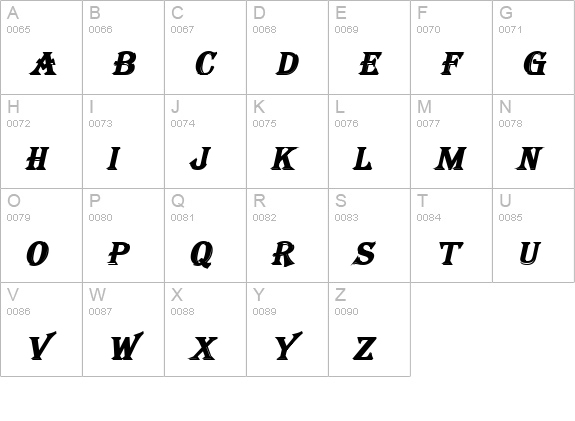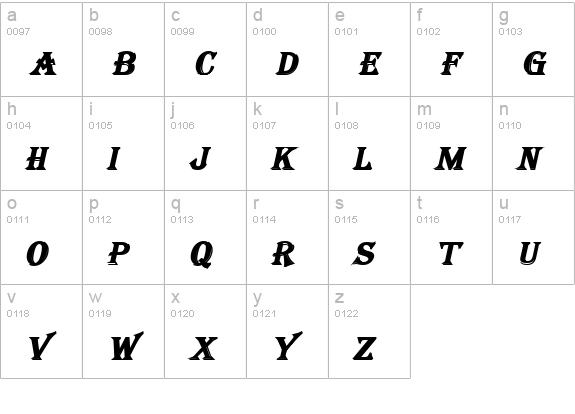
Tangiers BoldItalic Font Details
Introducing Tangiers BoldItalic, a captivating and dynamic font that effortlessly combines boldness and elegance. This unique font is sure to make a lasting impression with its striking and sophisticated appeal. Tangiers BoldItalic is perfect for those seeking a font that exudes confidence and style. Its bold and italicized design adds a touch of flair and individuality to any project, making it an ideal choice for headlines, logos, posters, and more. With its strong and confident presence, Tangiers BoldItalic commands attention and demands to be noticed. Its sleek and modern aesthetic effortlessly captures the essence of contemporary design, making it a versatile choice for both digital and print applications. But what sets Tangiers BoldItalic apart is not just its stunning design—it's also free. Yes, you read that right! This extraordinary font is freely available to download at FontsMarket.com. Now you can enjoy the benefits of this exceptional font without any cost, making it the perfect choice for budget-conscious designers and creatives. So why wait? Discover the power and beauty of Tangiers BoldItalic today. Download it for free at FontsMarket.com and elevate your designs to new heights with this bold and captivating font.